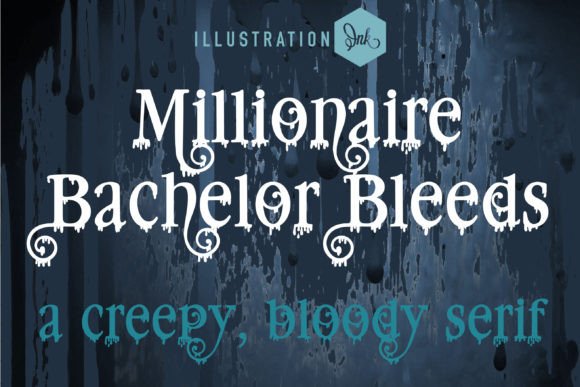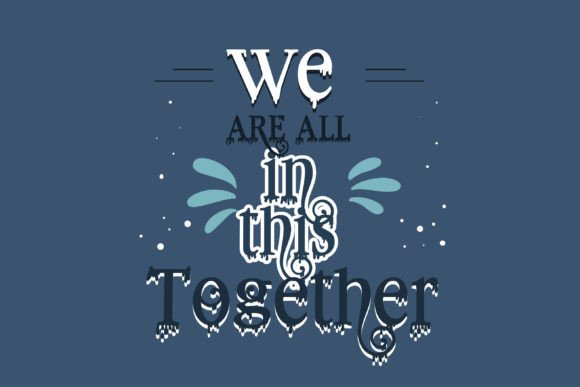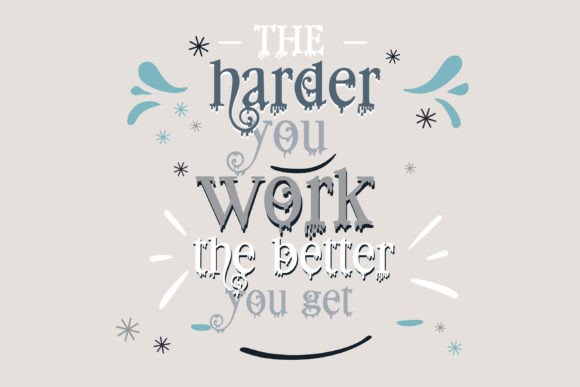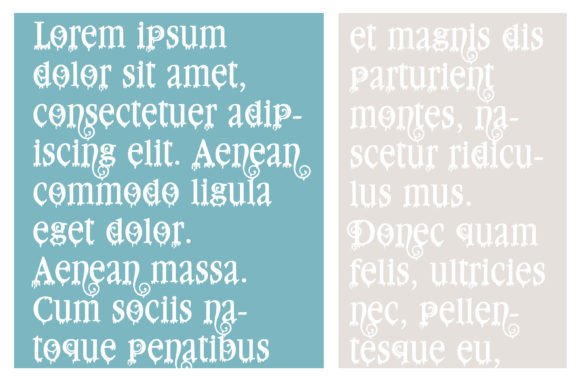
Millionaire Bachelor Bleeds Font
About the Millionaire Bachelor Bleeds Font
Step up your design game with Millionaire Bachelor Bleeds Font, a font that exudes confidence and style. This hand-crafted font is a squat serif with swooping curls and drips of blood throughout.
This font’s dramatic flair makes it ideal for headlines, short impactful statements, or branding projects requiring a bold, rebellious edge. It would excel on posters, packaging for niche products (e.g., horror films, gothic fashion), or limited-edition releases. However, the highly decorative nature and low x-height make it unsuitable for body text or UI elements where readability is paramount.
Consider pairing “Millionaire Bachelor Bleeds” with a clean sans-serif like Futura for contrast, or a more traditional serif like Garamond for a sophisticated, yet unsettling juxtaposition. A geometric sans-serif could also work, providing a modern counterpoint to the font’s handcrafted quality.
The overall personality is rebellious and dramatic, conveying a sense of danger and intrigue. Its handcrafted quality adds a touch of human imperfection, balancing the aggressive strokes.
Millionaire Bachelor Bleeds Font Usage Examples
Millionaire Bachelor Bleeds Font Example